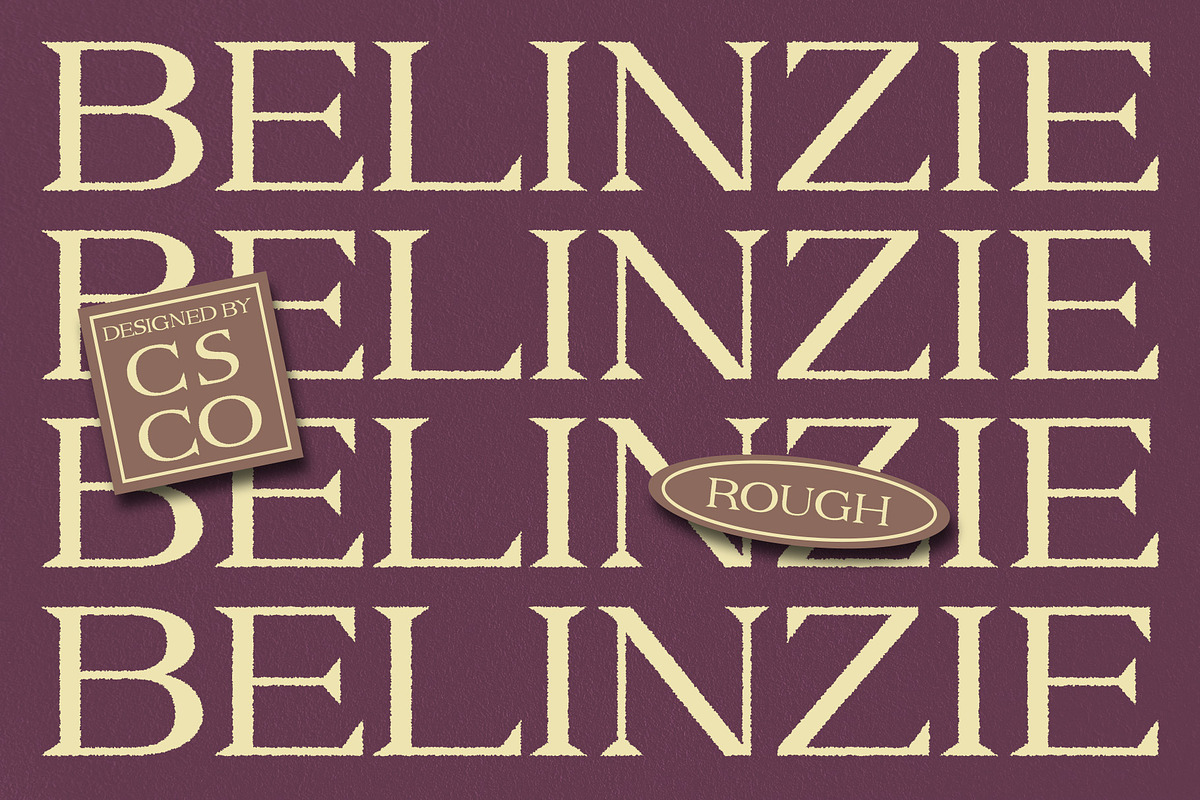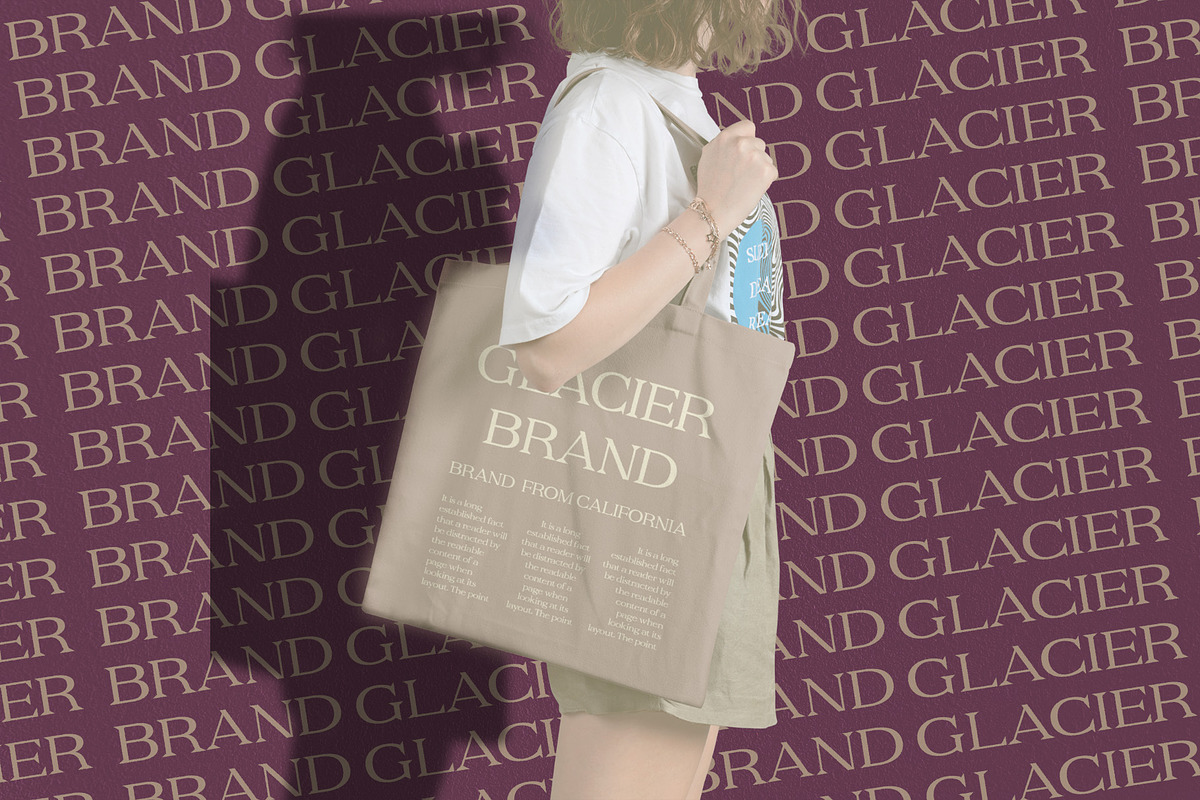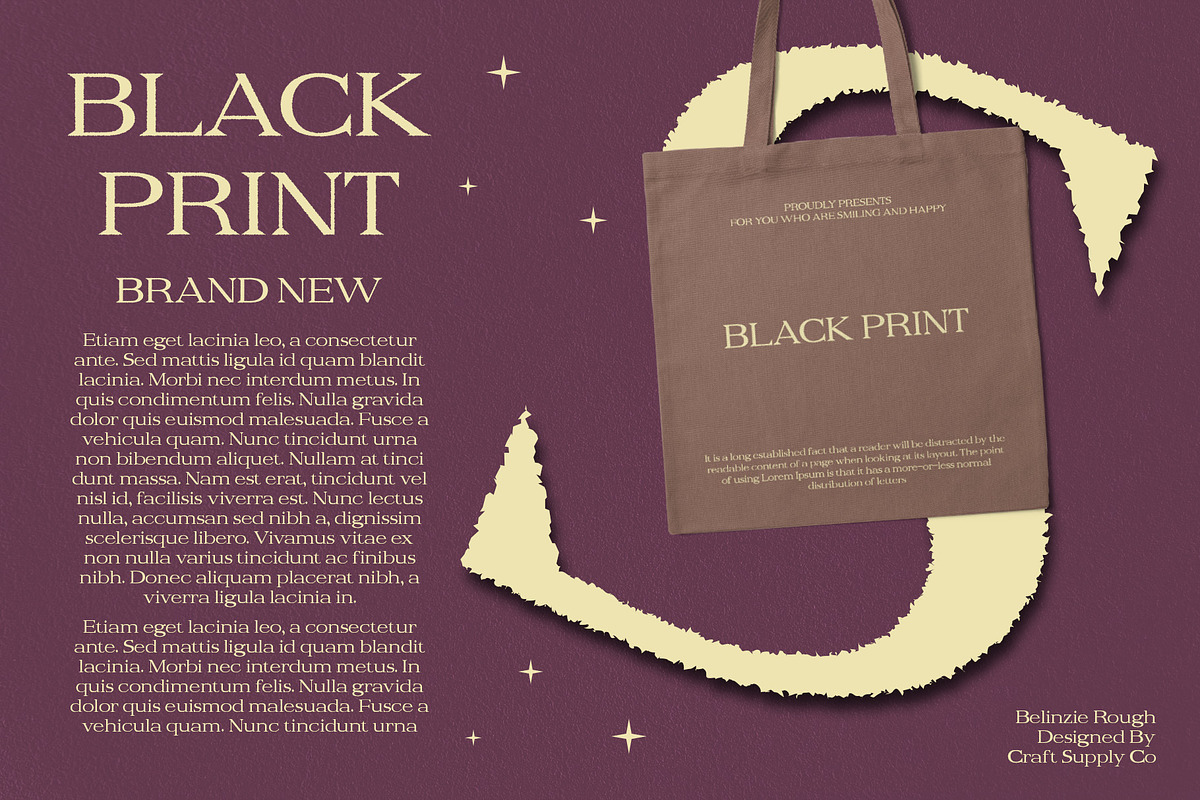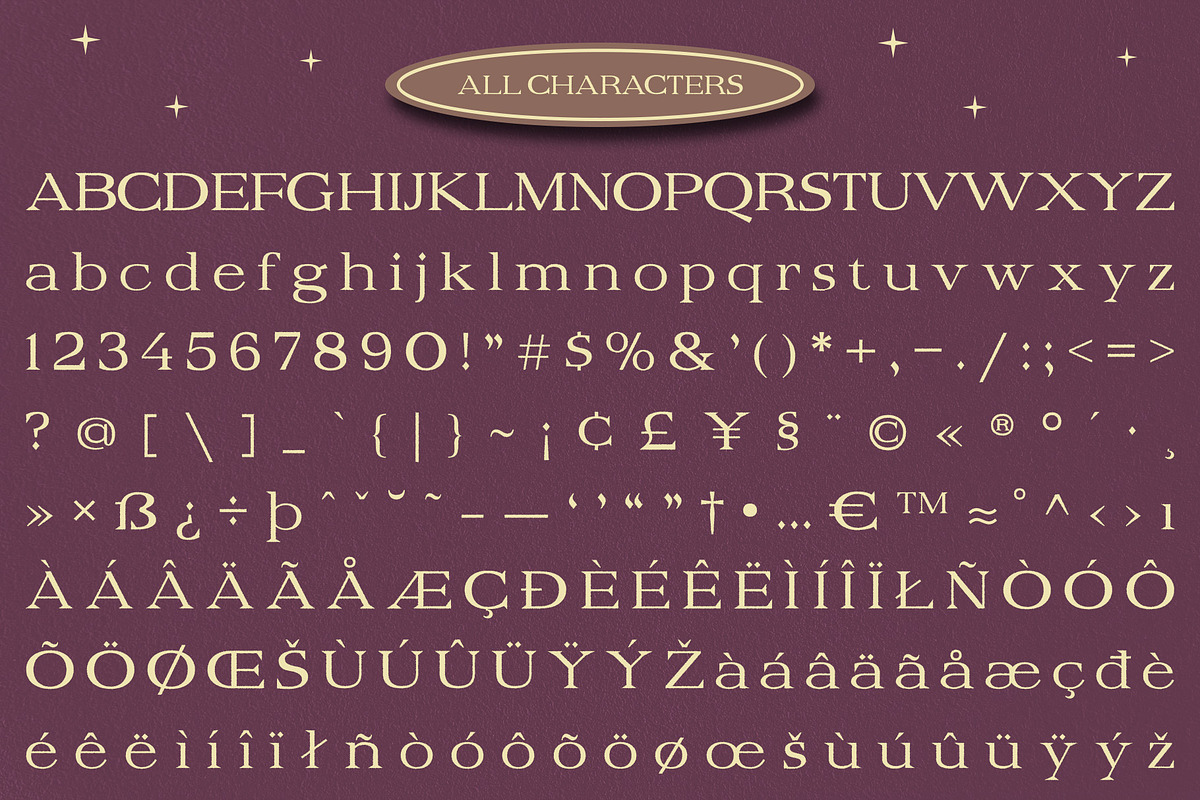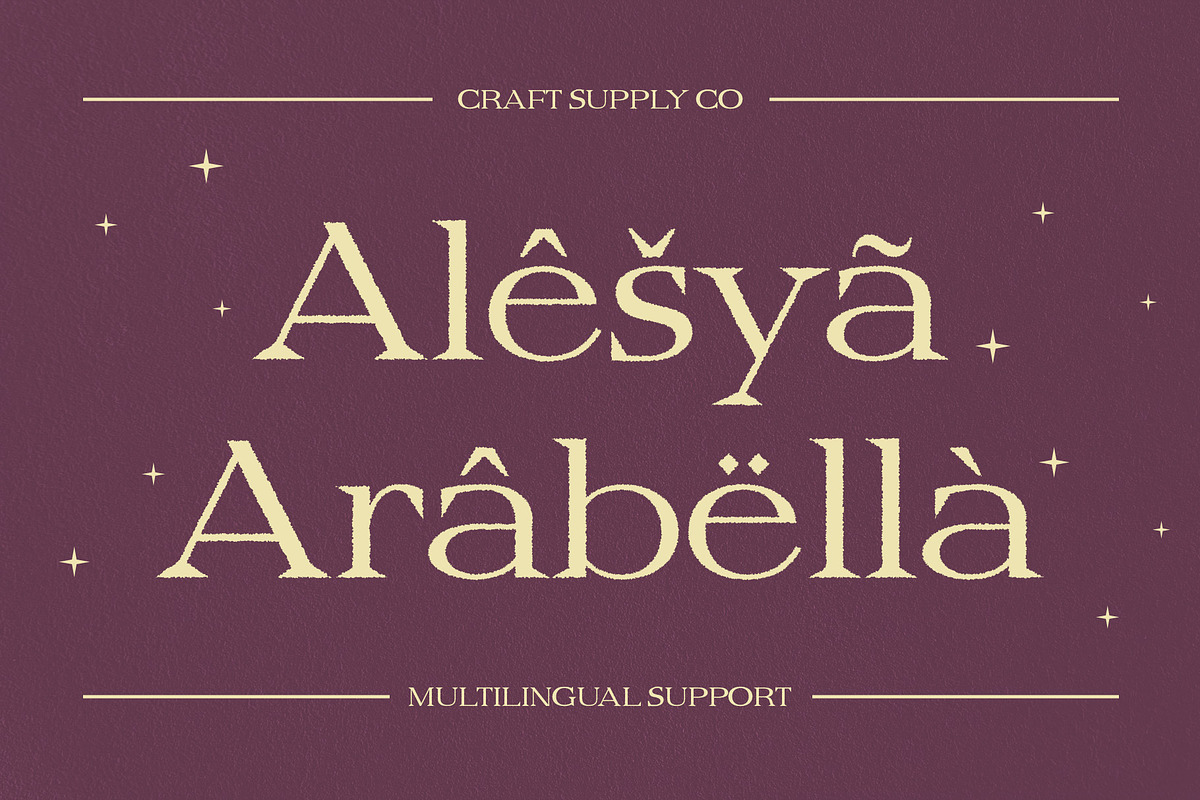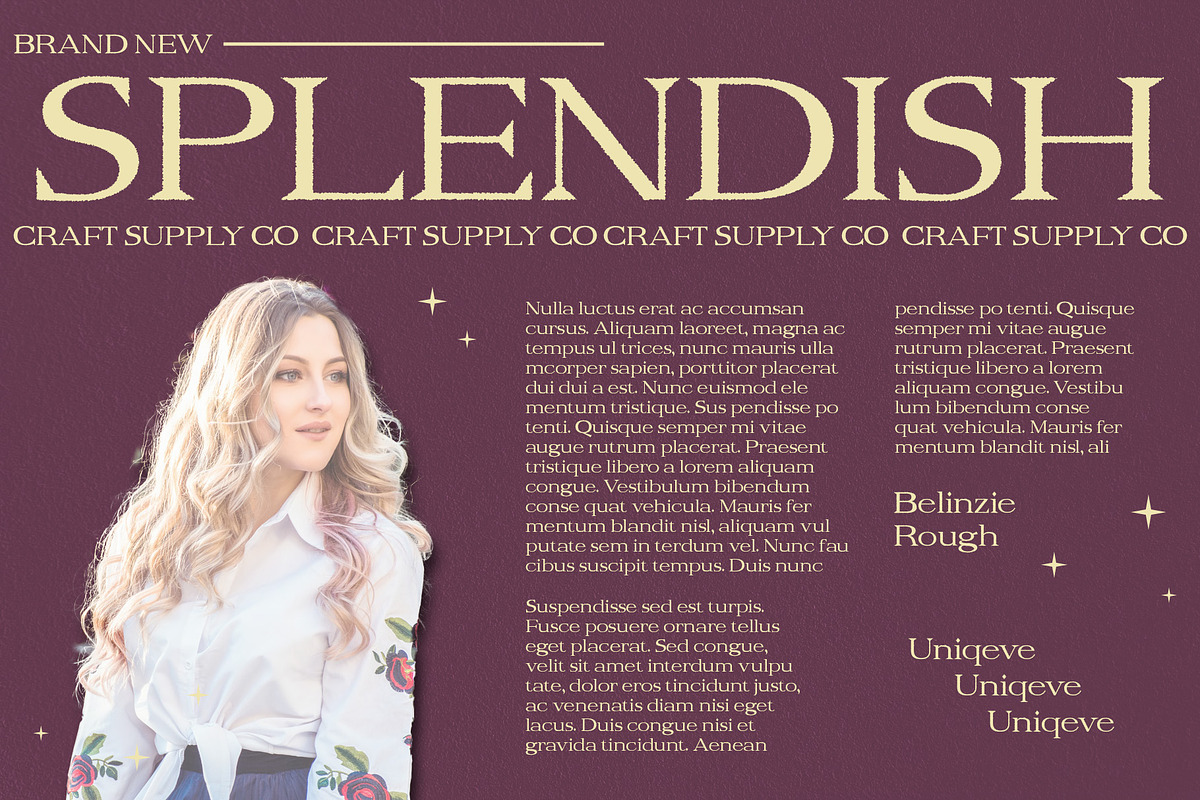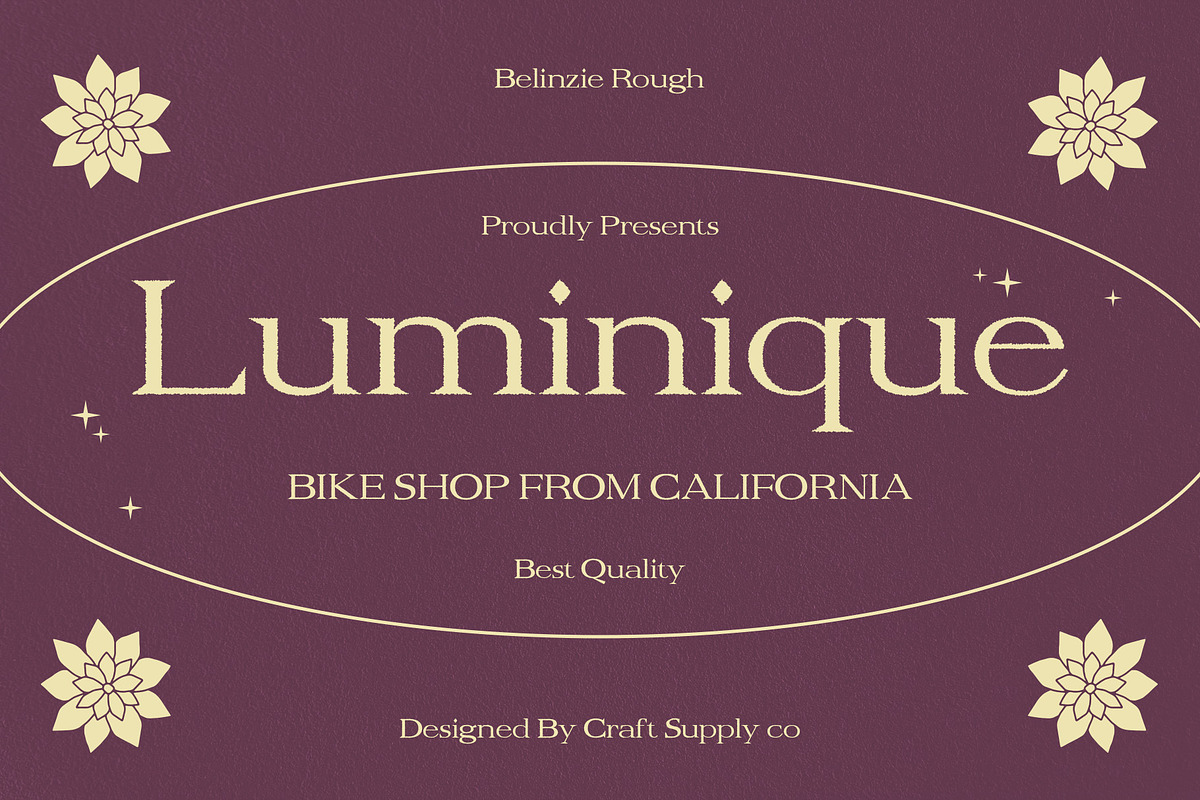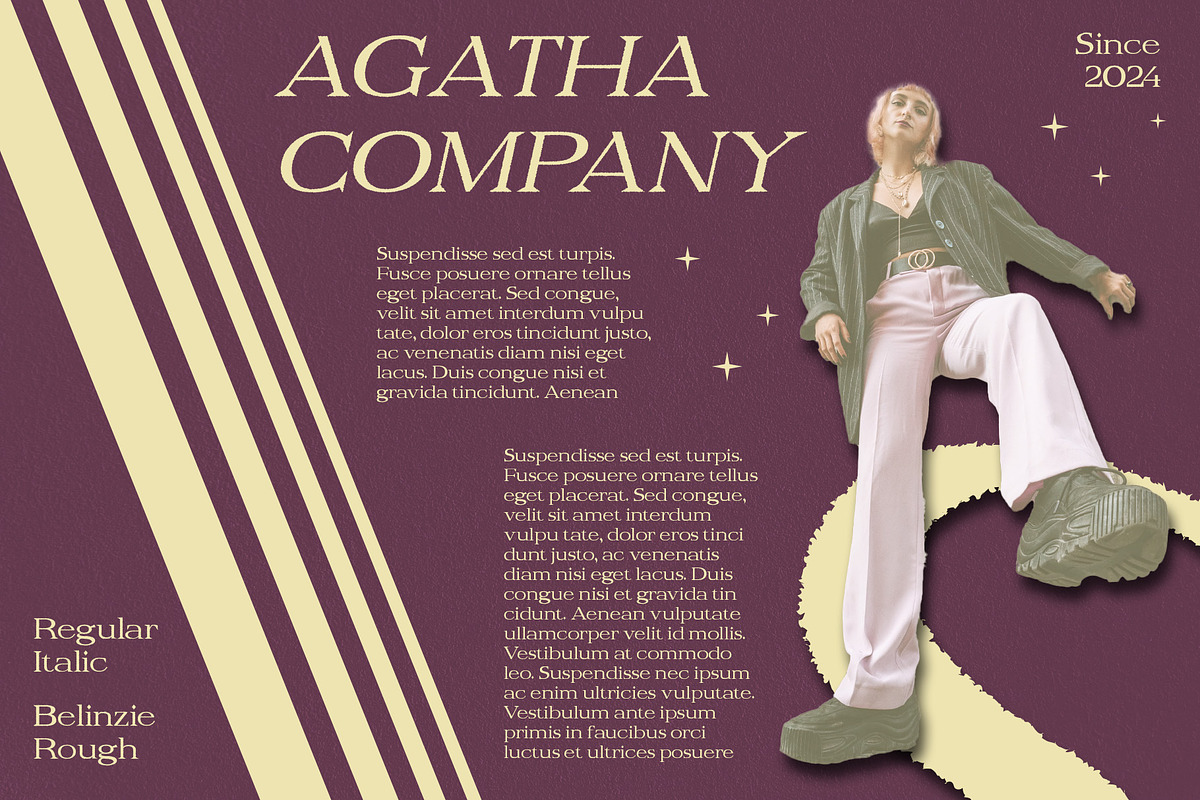
Belinzie Rough
Belinzie Rough: Distinctive Display Typography
Captivating Serif Design Belinzie Rough features an eye-catching serif design that commands attention. Each character is meticulously crafted with rough textures, adding a touch of uniqueness to your display projects.
Rustic Charm with Rough Effects The font exudes a rustic charm, enhanced by its rough effects that give it a weathered and aged appearance. This rugged aesthetic lends character and authenticity to any display application.
Perfect for Display Needs Tailored specifically for display purposes, This font excels in various contexts, from posters to packaging. Its bold and distinctive appearance ensures that your message stands out effectively.
Versatile Application Beyond its rugged charm, This font offers versatility in application. Whether used for branding, editorial design, or web graphics, its rough serif style adds a unique and memorable flair.
Bold and Distinctive This font emerges as a bold and distinctive choice for display typography. With its captivating serif design and rough effects, it brings a rustic charm and authenticity to any project, making it ideal for those seeking to make a statement.